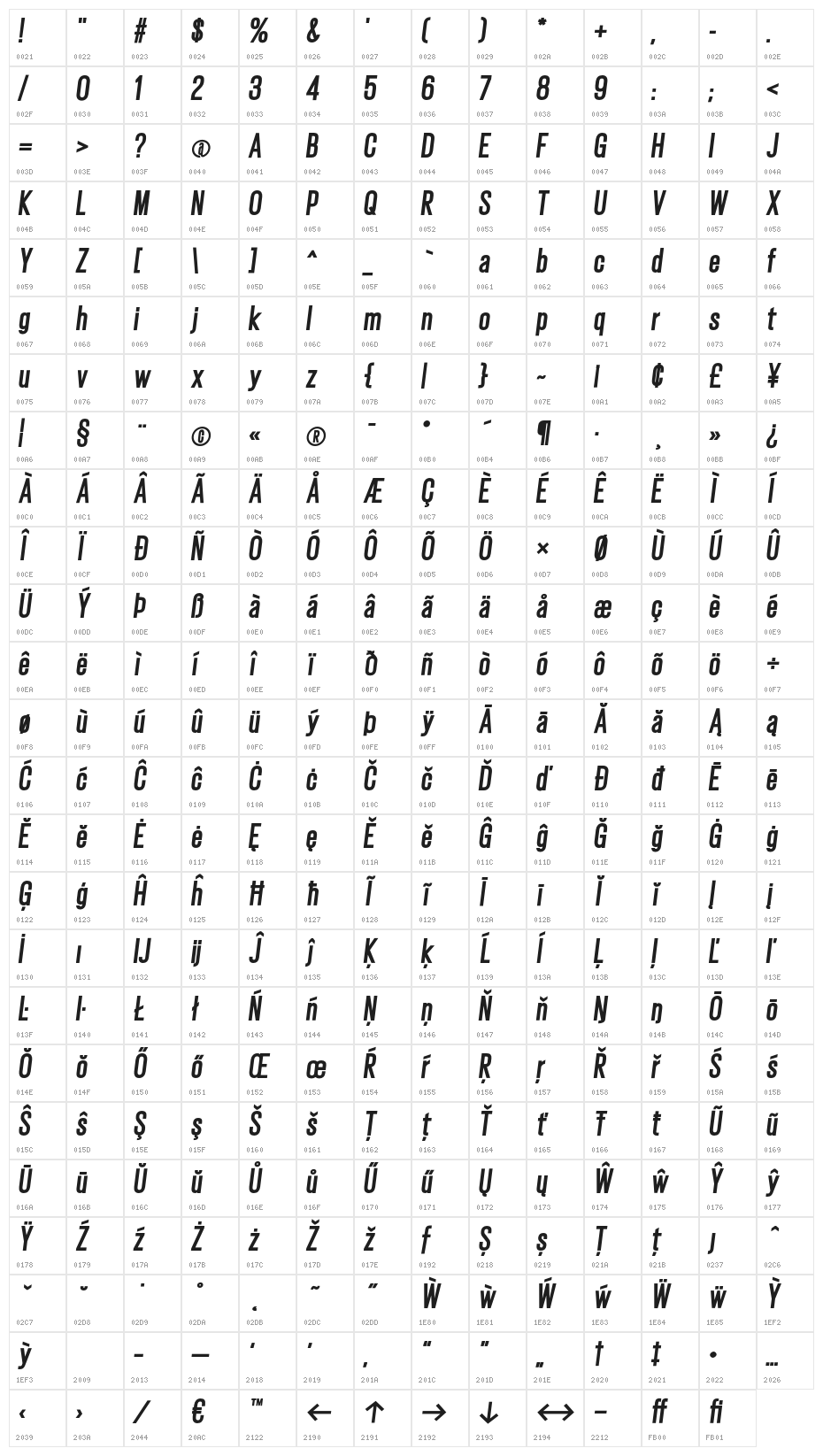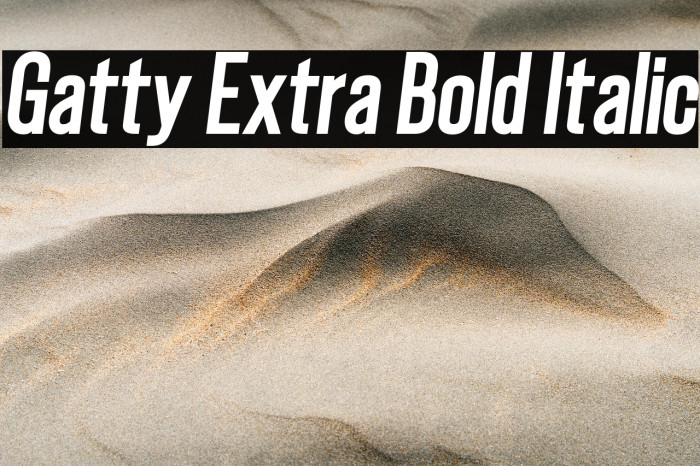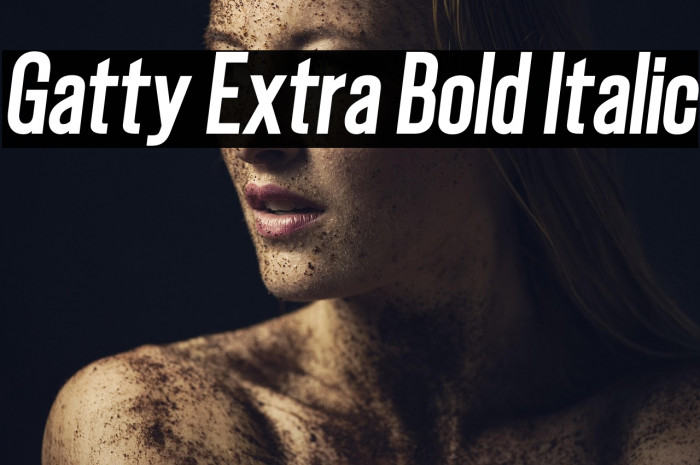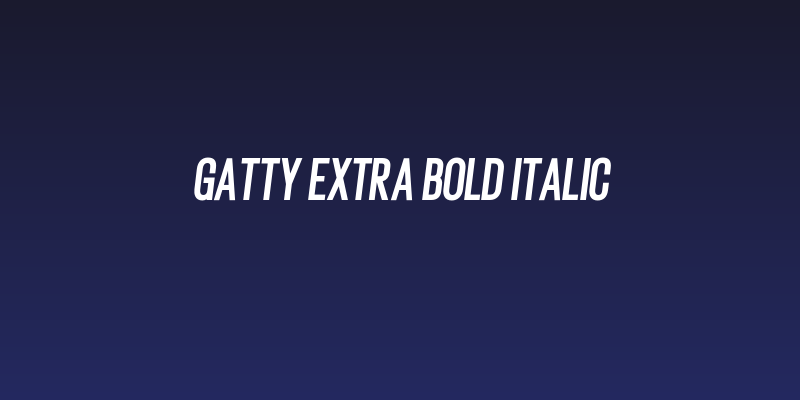
Gatty Extra Bold Italic Font
Gatty Extra Bold Italic Description
This font exhibits a bold and dynamic presence with its extra-bold weight and italic style. The characters are slightly condensed, giving it a compact and powerful look. The strokes are thick and consistent, providing a strong visual impact. The italic slant adds a sense of motion and urgency, making it suitable for attention-grabbing headlines. The uppercase and lowercase letters maintain a uniform style, ensuring readability while conveying strength. The numbers and special characters are designed with the same boldness, ensuring consistency across all elements.